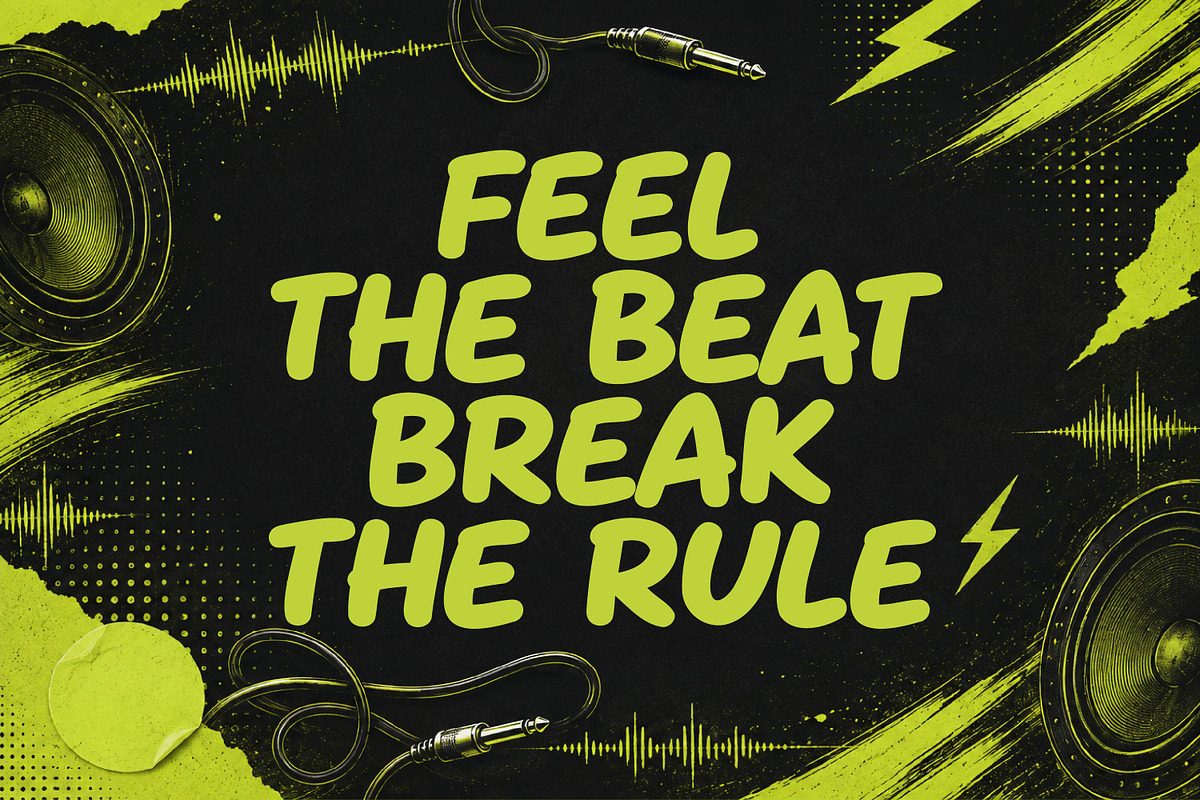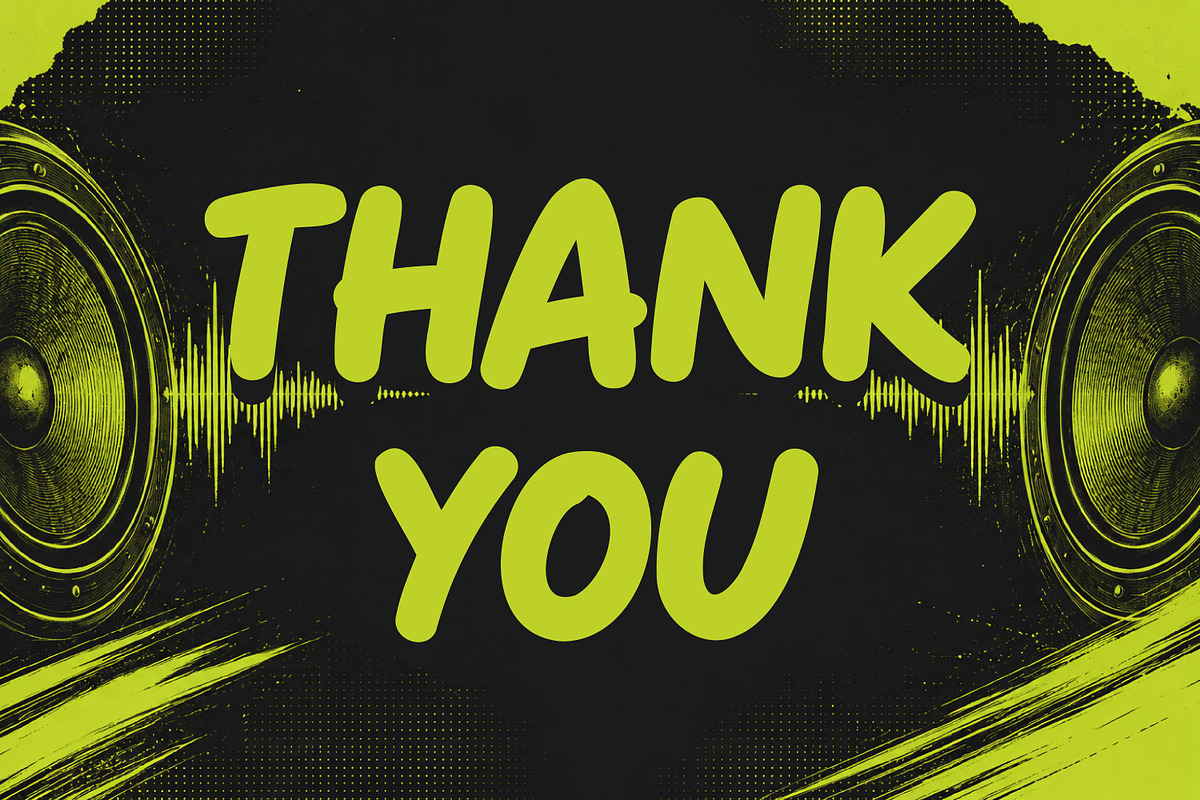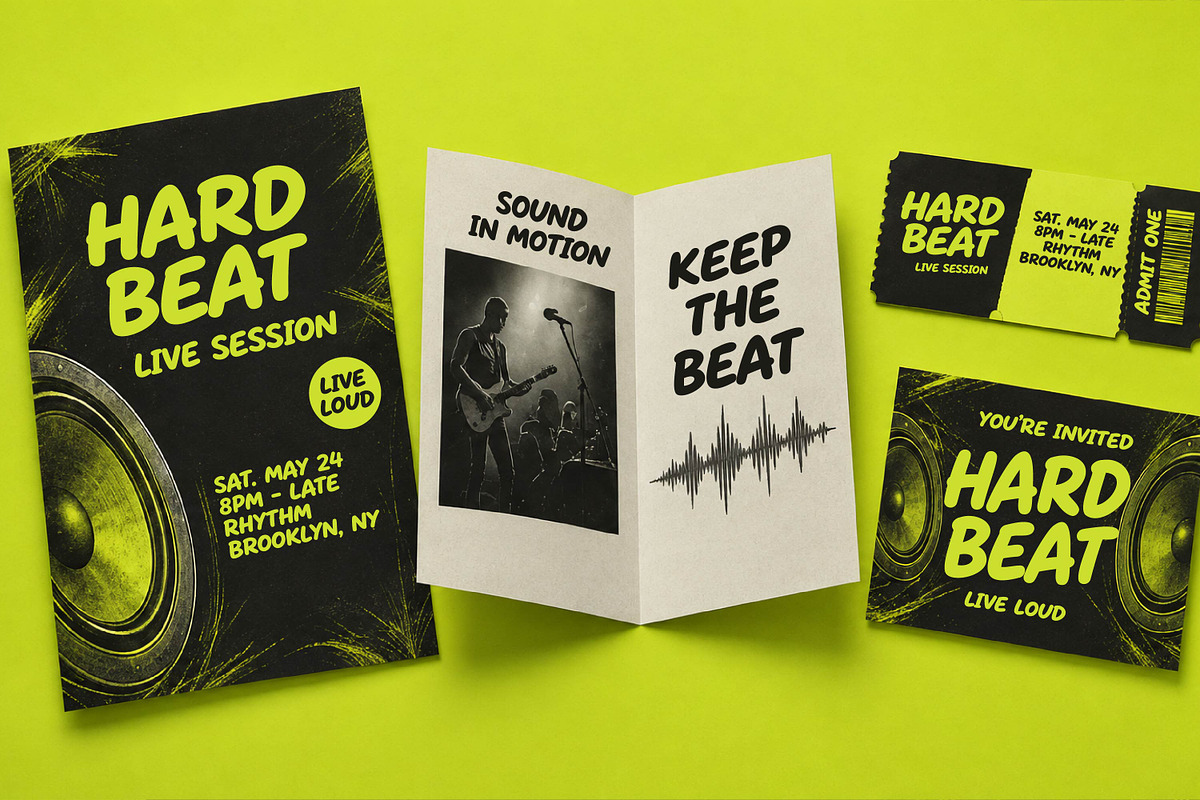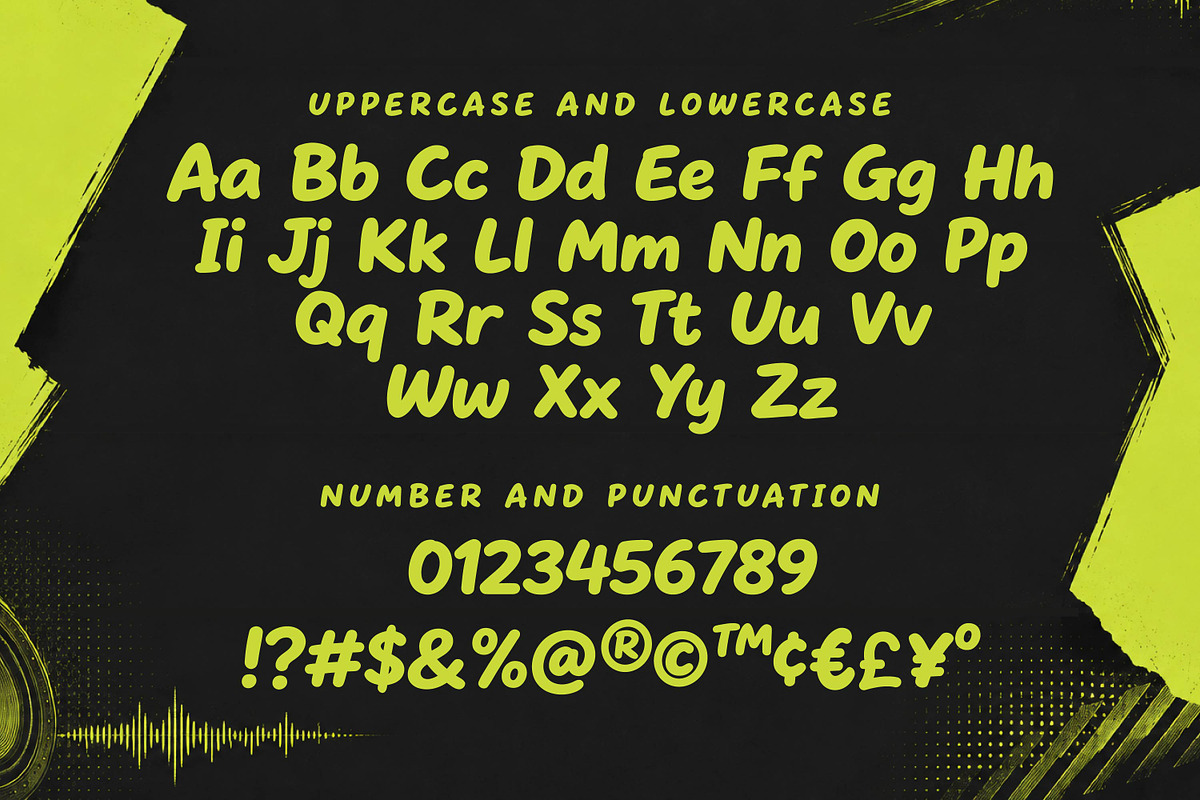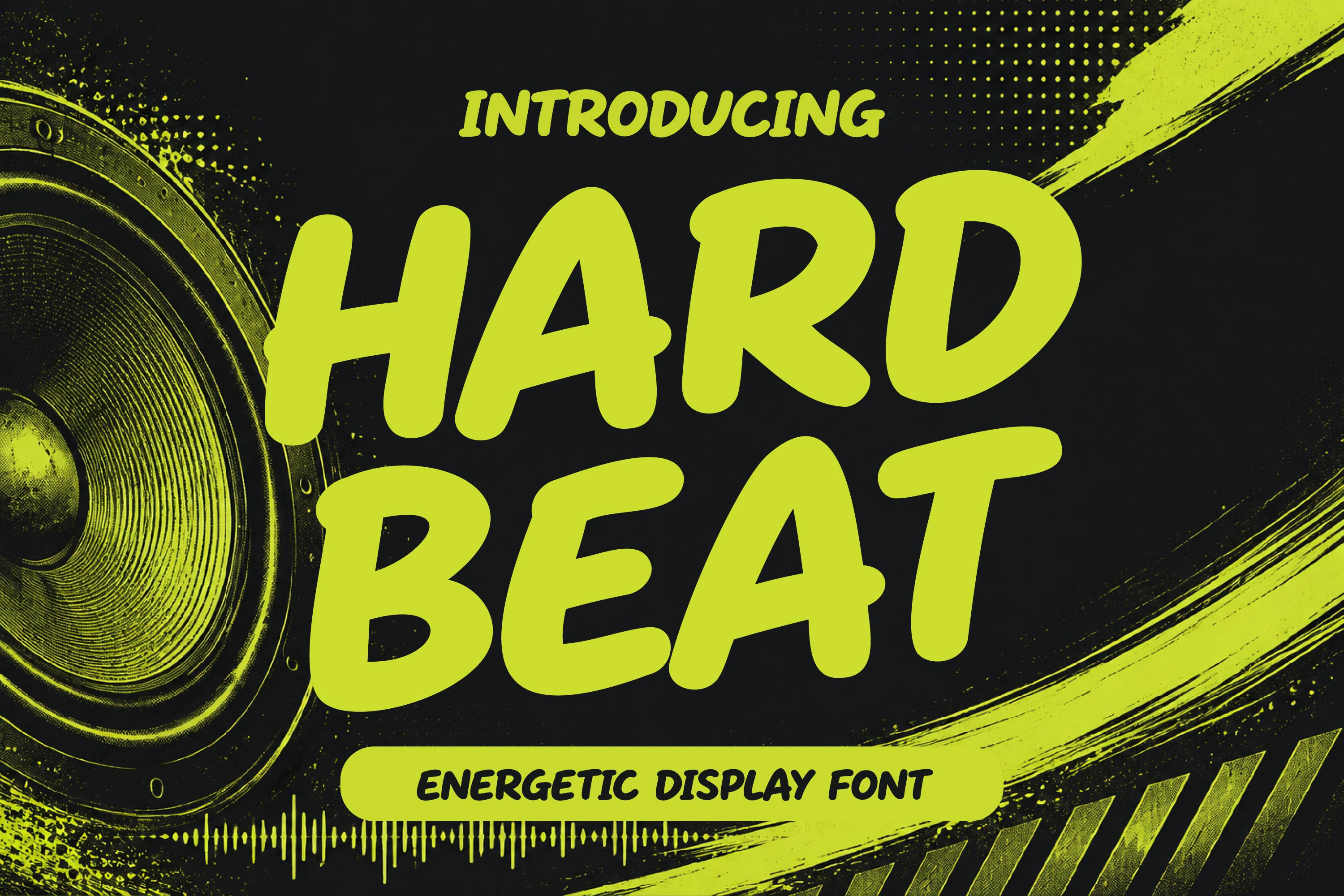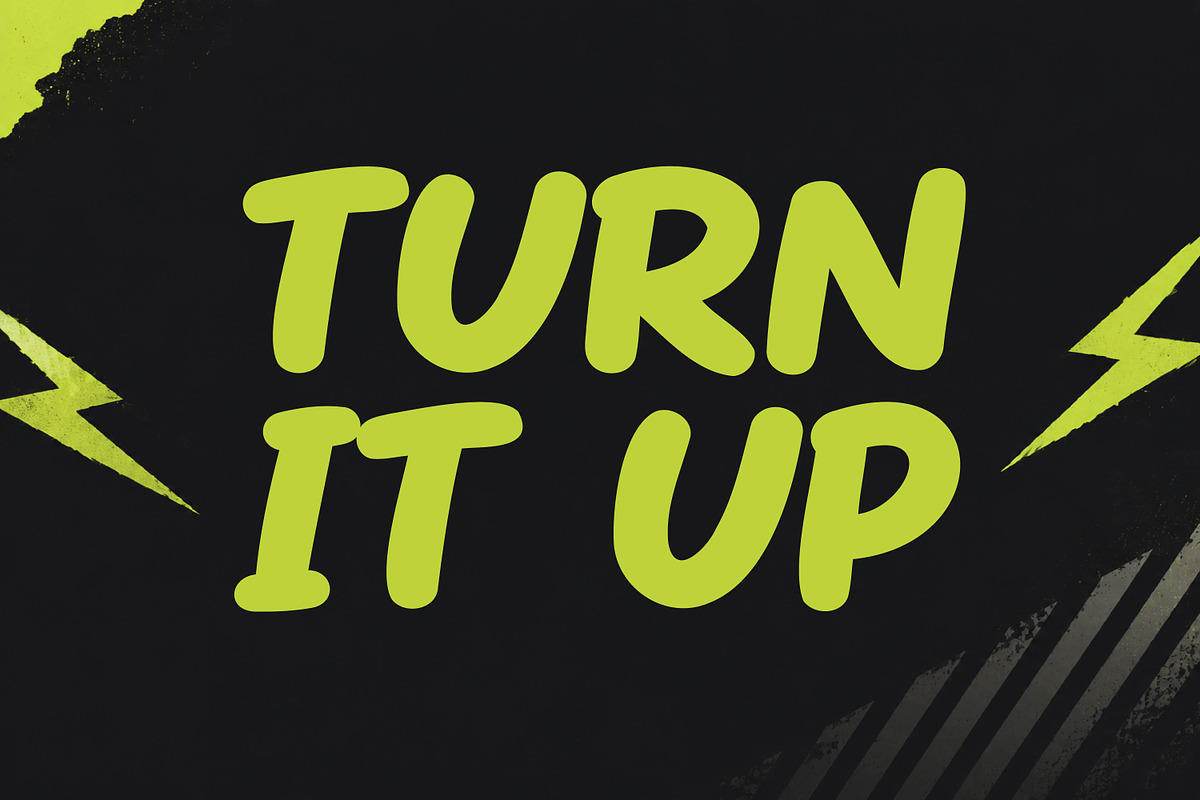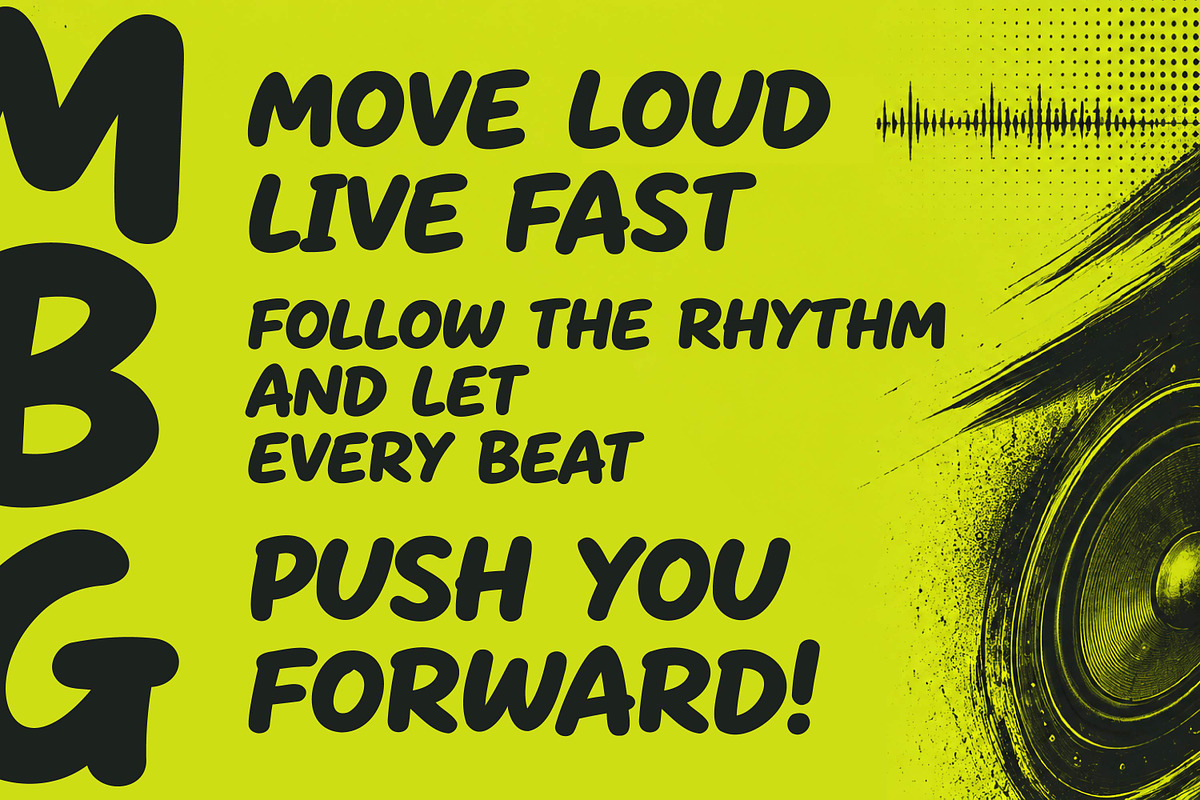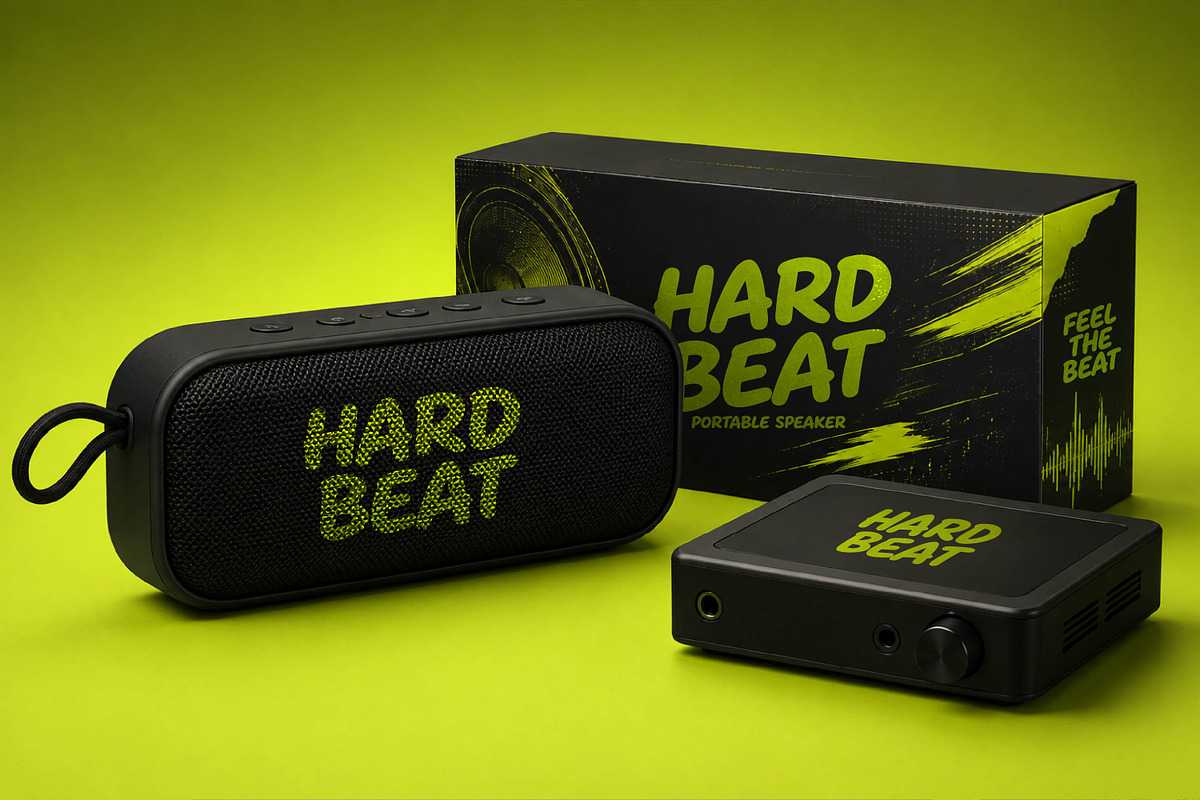
Hard Beat - Energetic Display Font
Hard Beat is an energetic display font with bold, dynamic letterforms designed to bring rhythm, movement, and impact to any composition. Perfect for music posters, album covers, streetwear, sports graphics, branding, headlines, events, and energetic promotional designs.